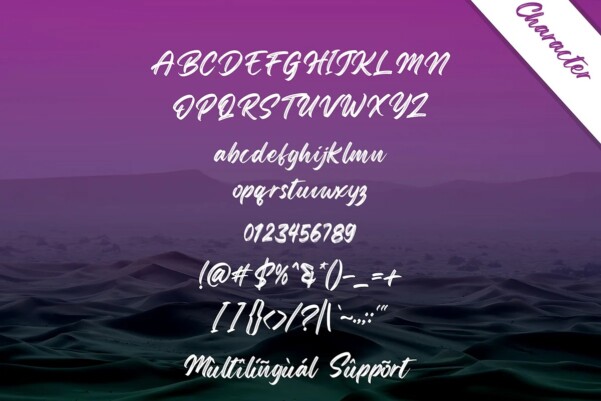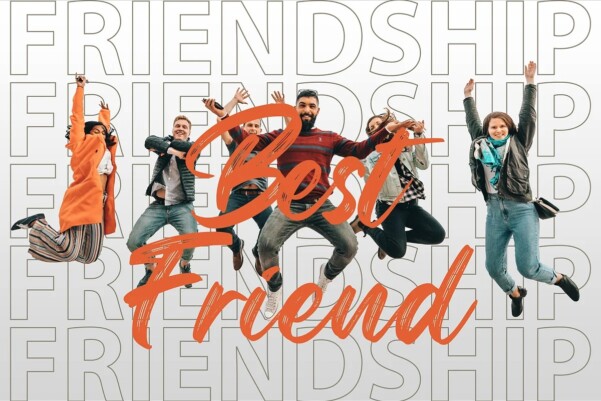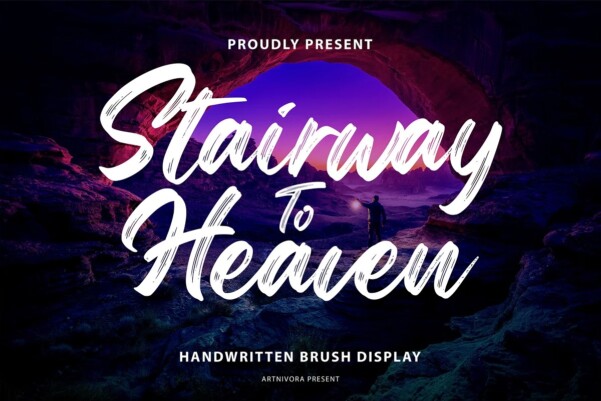
Stairwaytoheaven Font
Stairwaytoheaven Font a simple and handwritten brush font. So perfect for you who needs a typeface for logo designs, magazine, social media, brochure, and many more.